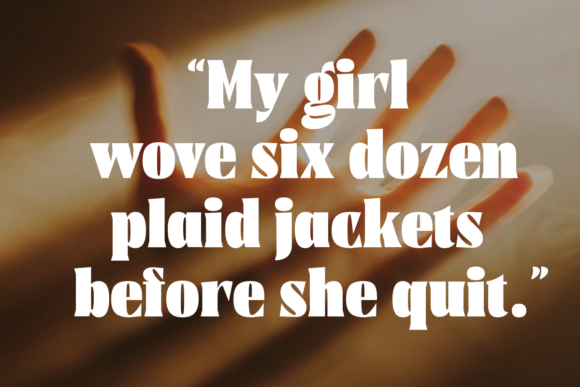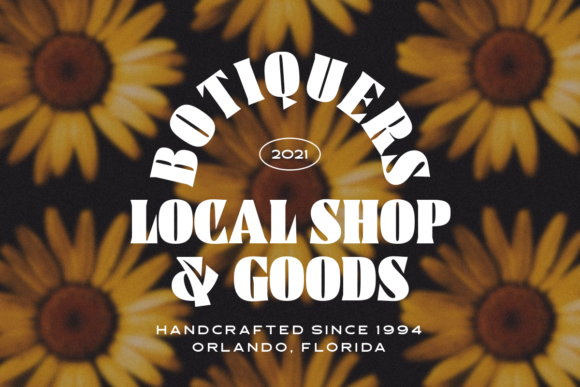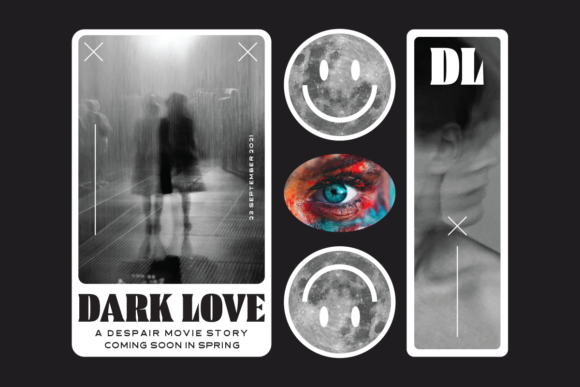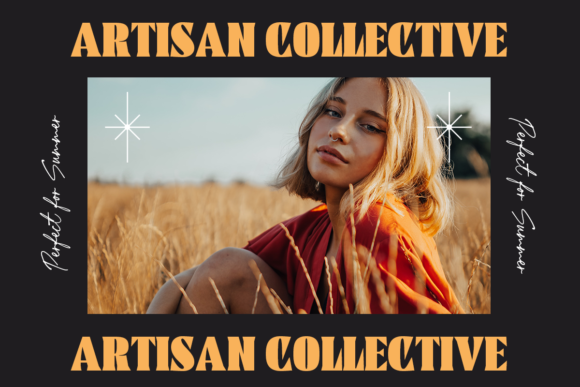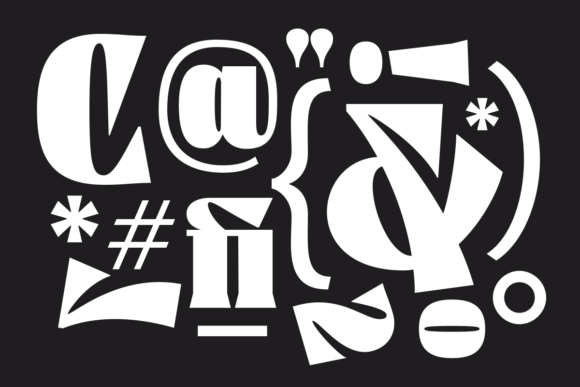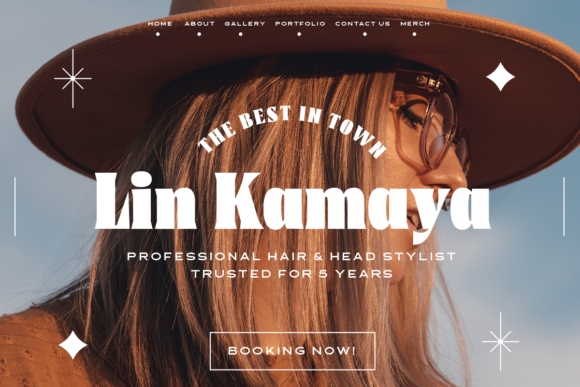
The Perfect Font for a Lasting Impression
Have you ever been stuck in the middle of a design project, searching for the perfect font to make your vision come alive? We’ve all been there. You browse through countless options, trying to find that one special font that captures the essence of your idea. And then, it hits you – a font so elegant, so modern, and so versatile that you can’t help but wonder how you ever managed without it.
Meet Calfine Font, the bold and cool serif font that’s about to become your new best friend. With its classy and modern look, Calfine Font is the perfect choice for logos, branding, invitations, stationery, and much more. Its thick lettered design is not only visually stunning but also highly versatile, making it an invaluable asset for designers of all levels.
Calfine Font Key Features
- Character Count: The font contains a comprehensive set of characters, including Latin, Cyrillic, and Greek alphabets, as well as punctuation and symbols.
- Resolution: Calfine Font is optimized for high-resolution displays, making it ideal for use in digital media, such as websites, social media, and mobile apps.
- Unique Characteristics: The font features a unique, modern design with a blend of geometric and organic elements, making it suitable for a wide range of creative projects.
- Font Style: Calfine Font is available in Regular, Bold, Italic, and Bold Italic styles, providing designers with a range of options for creating visually appealing typography.
Calfine Font Review
I recently had the chance to work with the Calfine Font, and I must say it’s a unique addition to any designer’s toolkit. Here are my honest thoughts on what works well and what could be improved.
- Modern feel**: Calfine Font has a sleek, modern aesthetic that’s perfect for trendy designs and brands.
- Legibility**: The font is highly legible, even at smaller sizes, making it ideal for body text and captions.
- Customization options**: The font family offers a range of styles and weights, allowing for a high degree of customization.
- Readability in small sizes**: While Calfine Font is legible at larger sizes, it can become a bit blurry and difficult to read at very small sizes.
- Lack of historical context**: The font’s design doesn’t draw from any particular historical era or style, which may limit its appeal to designers seeking a more traditional look.
Overall, I think Calfine Font is a solid choice for designers looking to add some modern flair to their work. While it may not be perfect for every project, it’s a versatile font that can add a unique touch to a wide range of designs.
Calfine Font Practical Application Guide
Getting the Most Out of Calfine Font
Here are some tips for getting the most out of Calfine Font:
- Experiment with different font sizes and styles to create visual hierarchy and emphasis.
- Pair Calfine Font with other fonts or graphics to create a cohesive design.
- Use Calfine Font in combination with images or illustrations to add texture and interest.
Calfine Font is suitable for a variety of design projects, including:
- Social media posts and graphics.
- Presentations and reports.
- Alternatives to Calfine Font
Lato is a modern sans-serif typeface designed by Łukasz Dziedzic. It’s a great choice for body text, headings, and titles due to its clean and elegant design. Lato is highly legible and works well for both digital and print media.
Comparison to Calfine Font: Lato has a more rounded and friendly feel compared to the sharp, geometric look of Calfine Font. It’s a good choice for projects that require a more approachable and inviting tone.